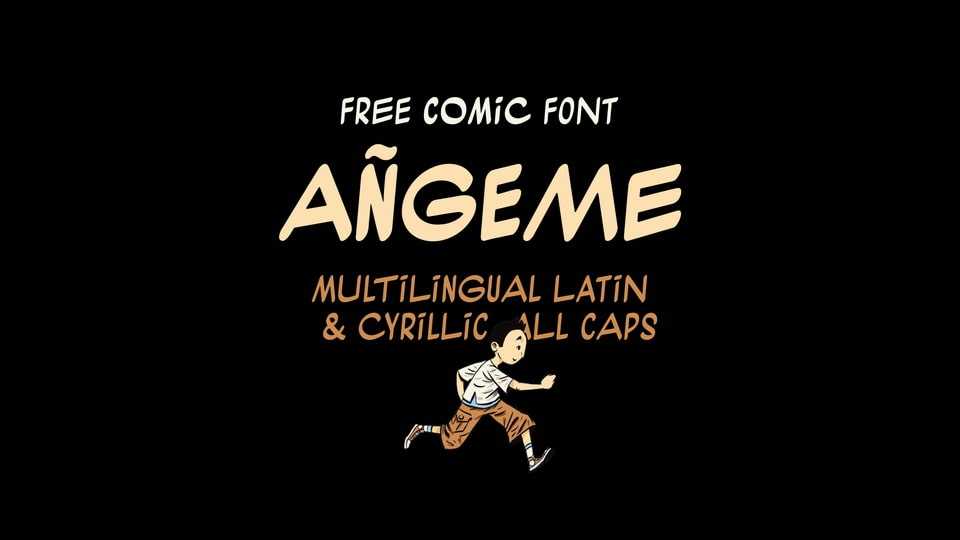
Download Angeme font, a comic typeface, inspired by Franco-Belgian comics “bande dessinée” or “BD”. Designed to help Central Asian comic book artists using a modern handwritten typeface that supports Central Asian alphabets (Cyrillic and Latin).